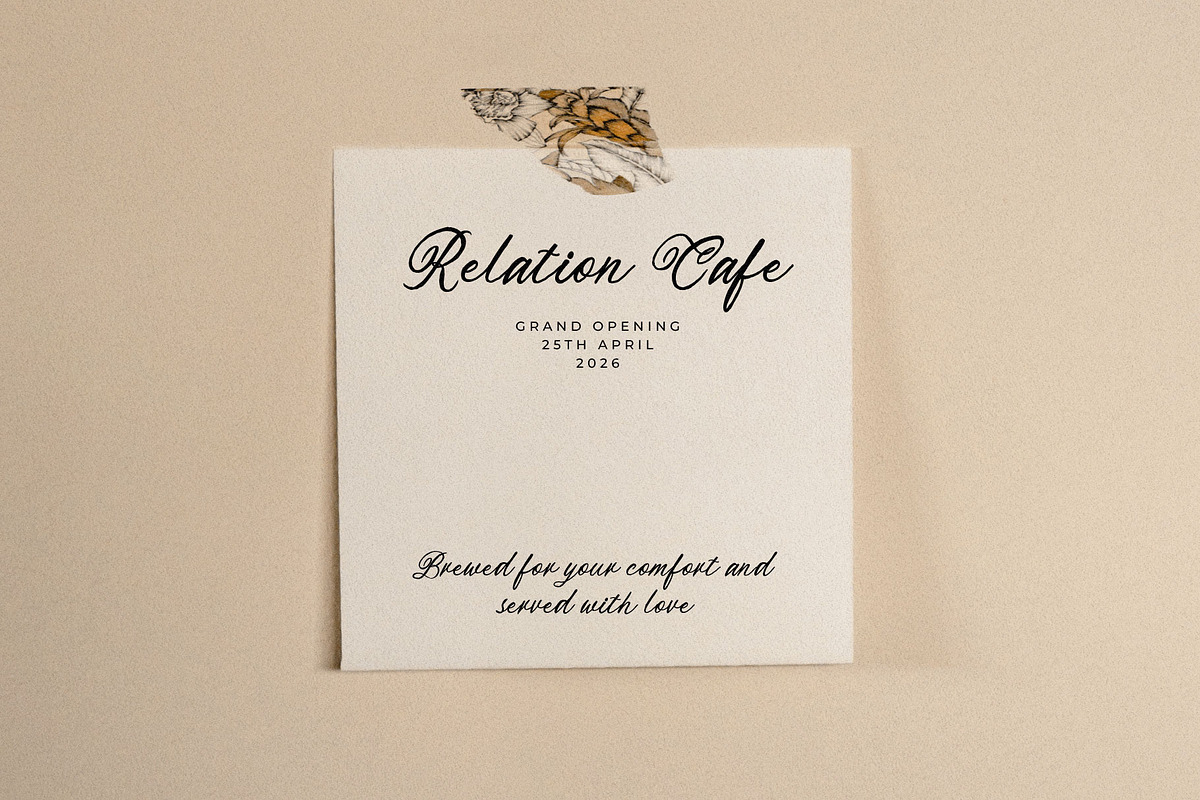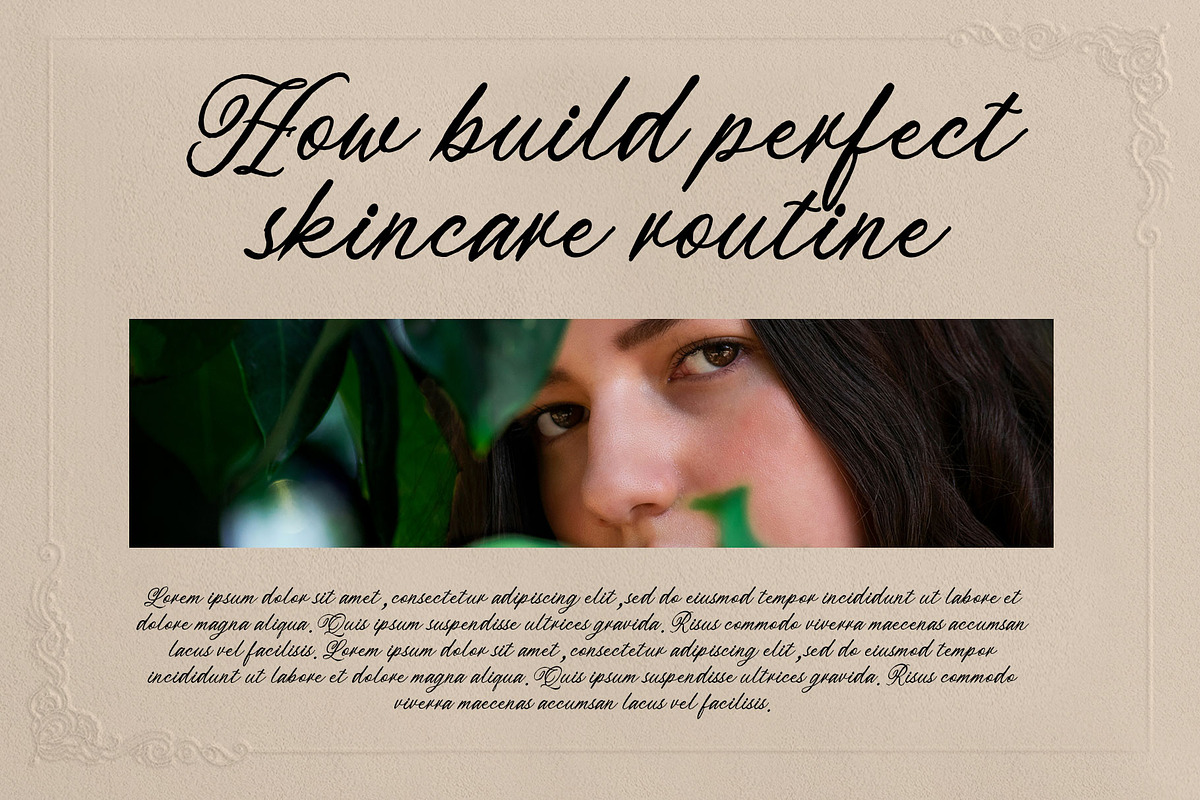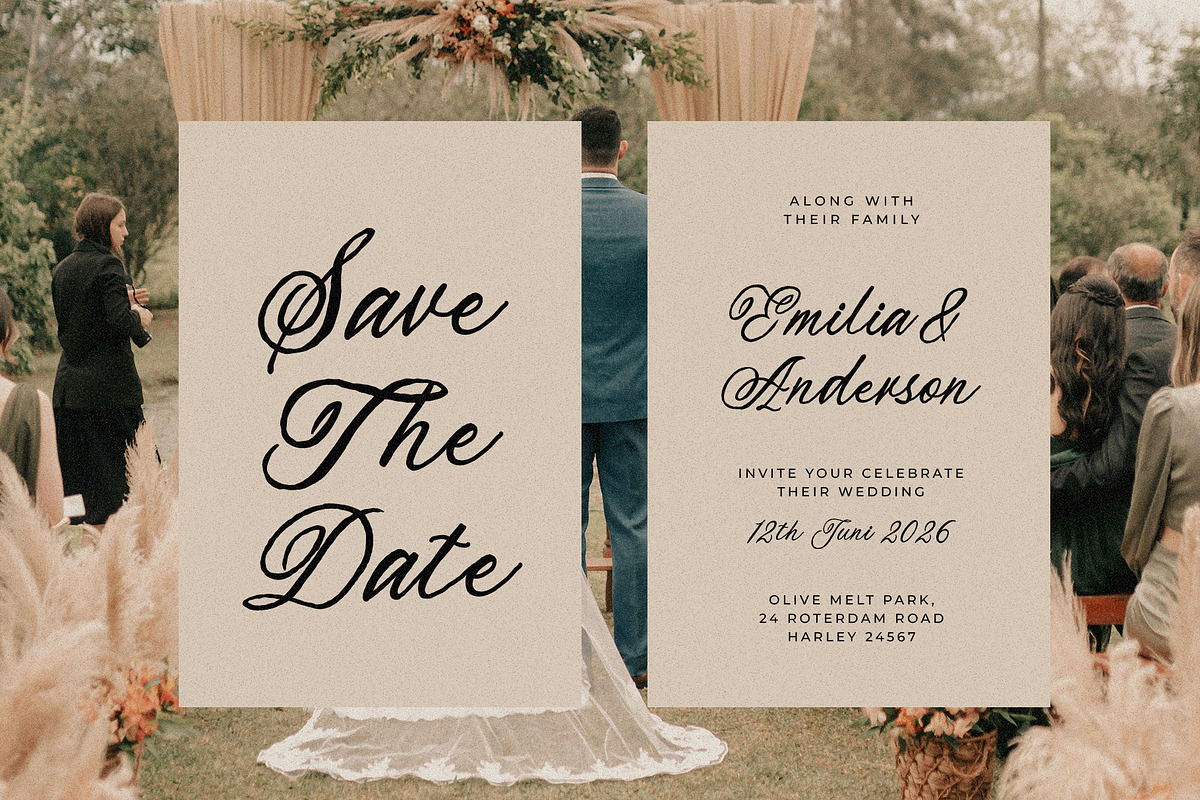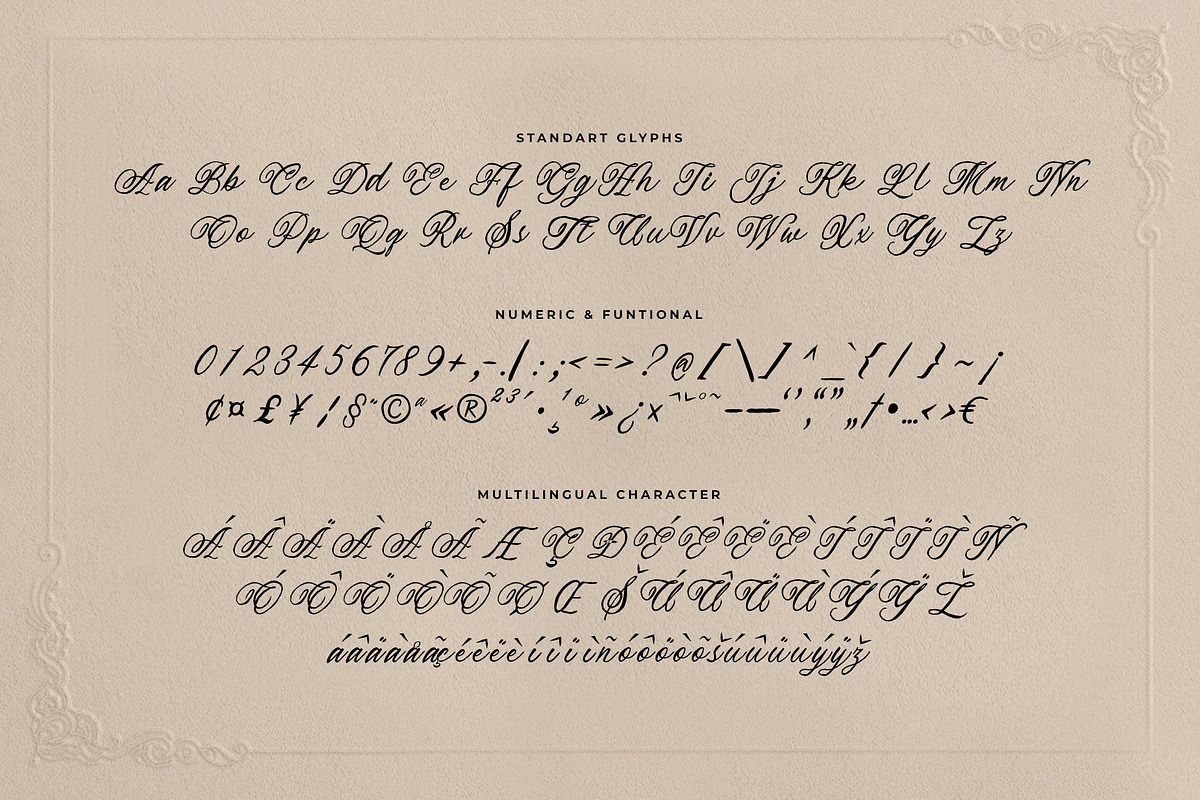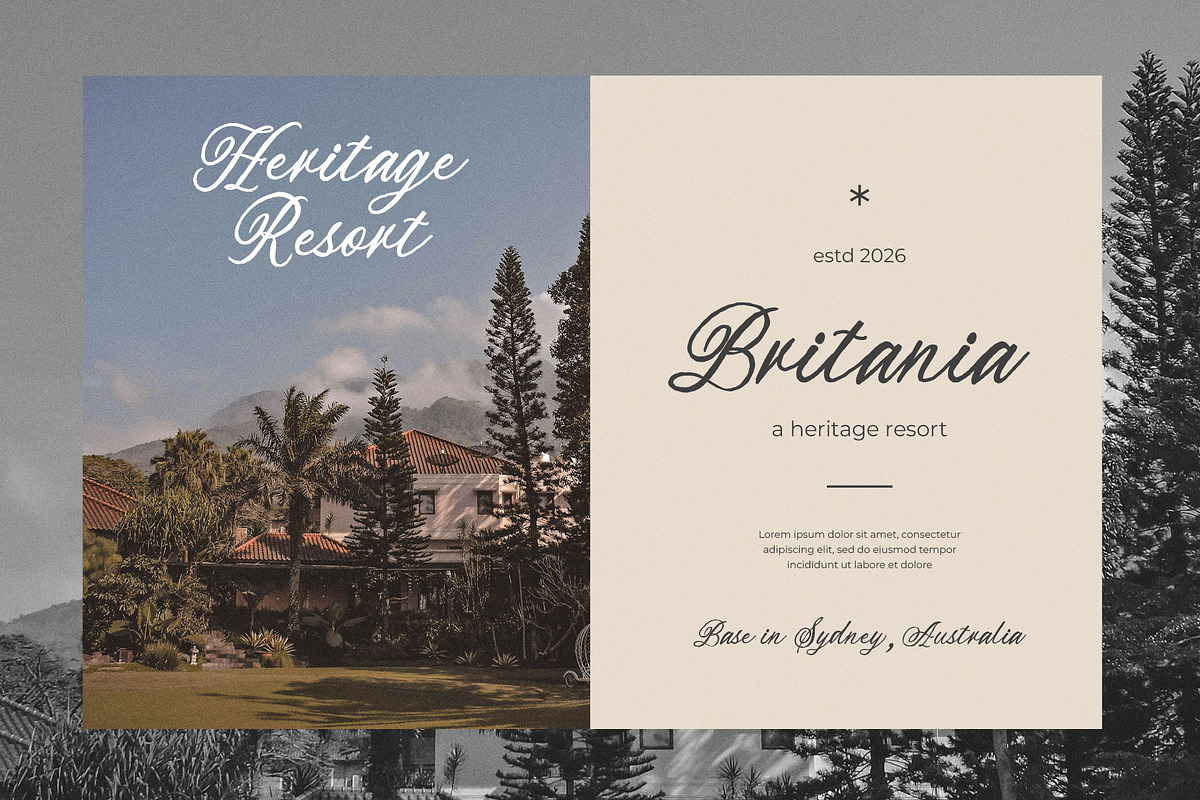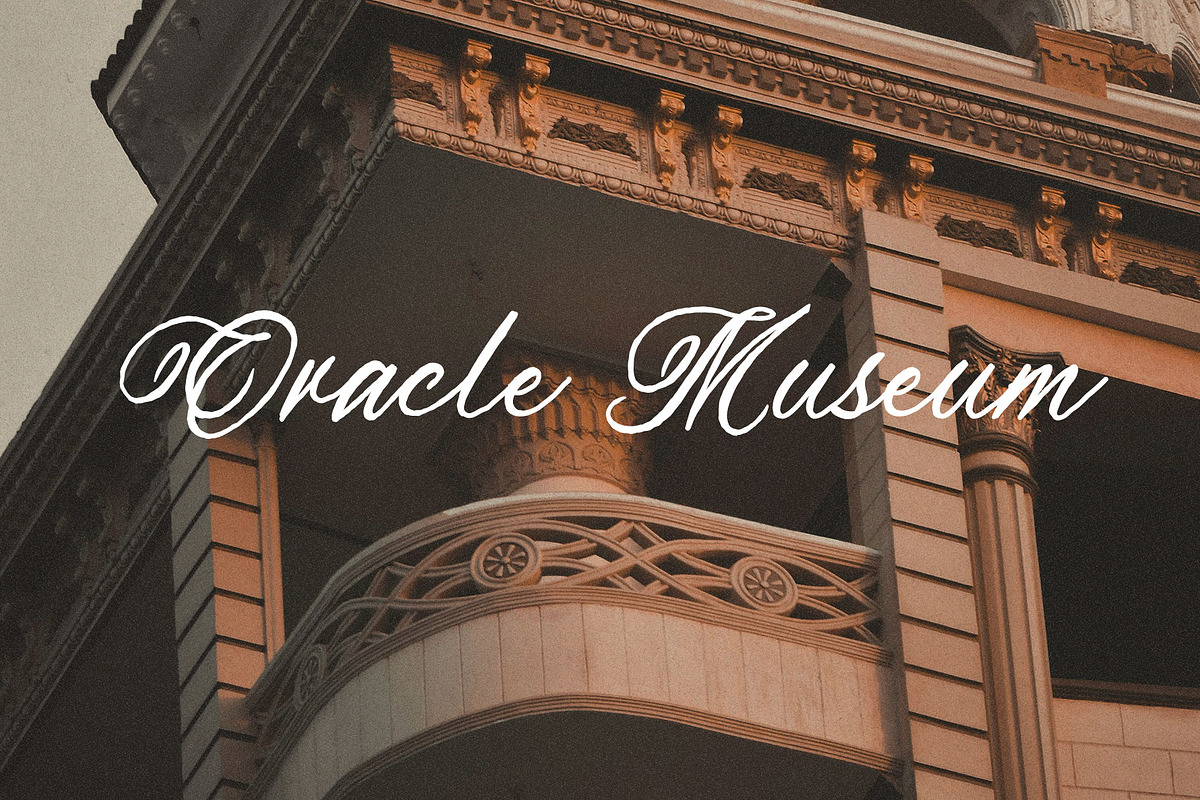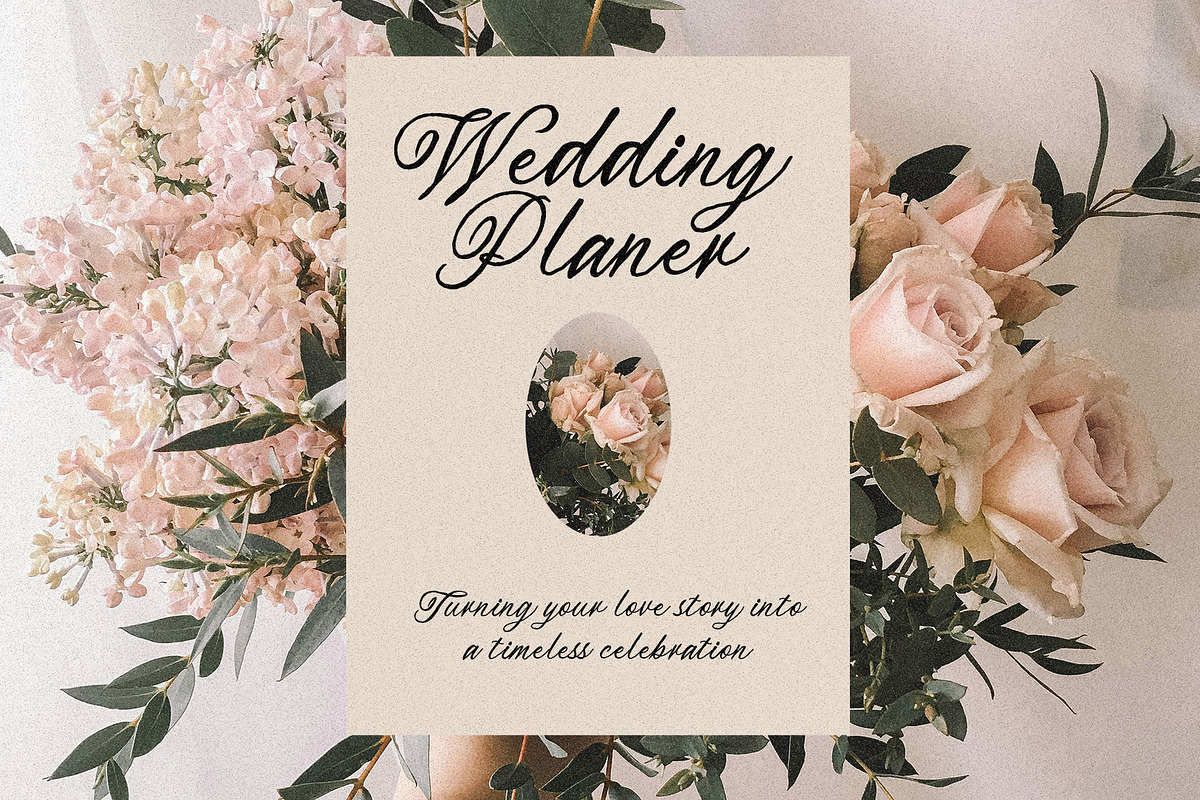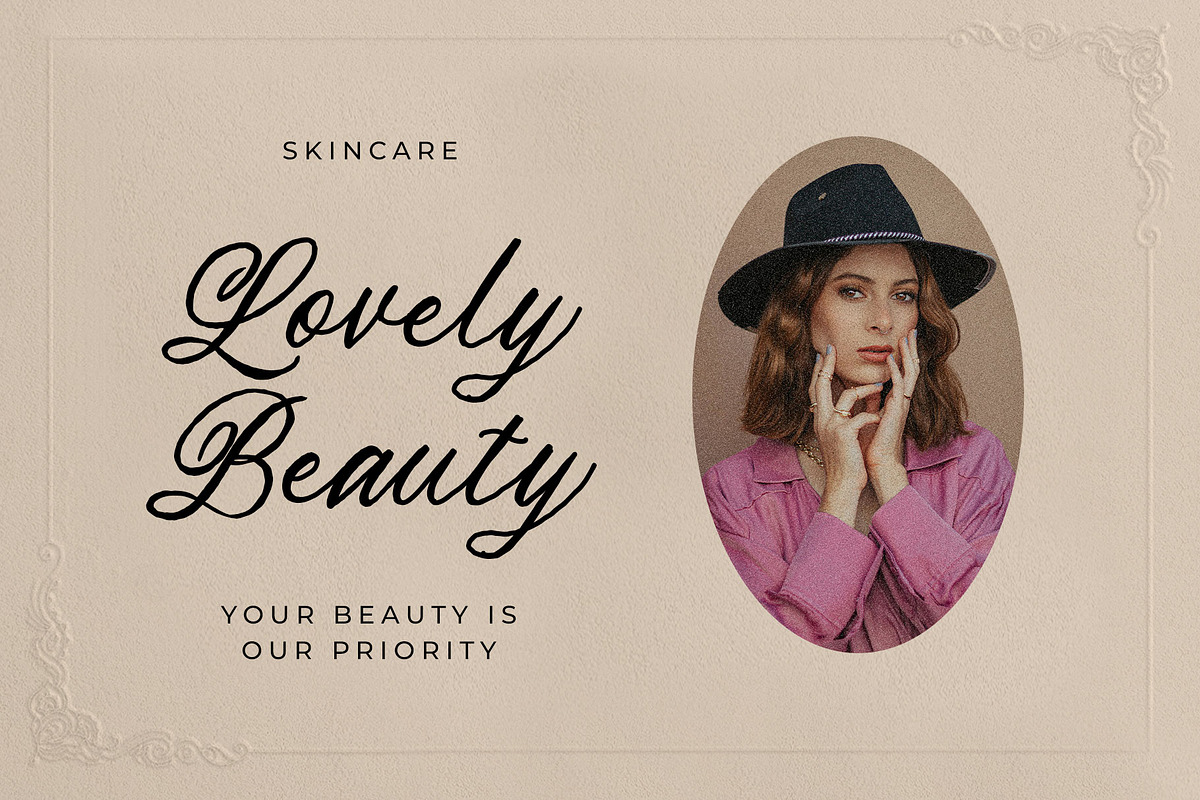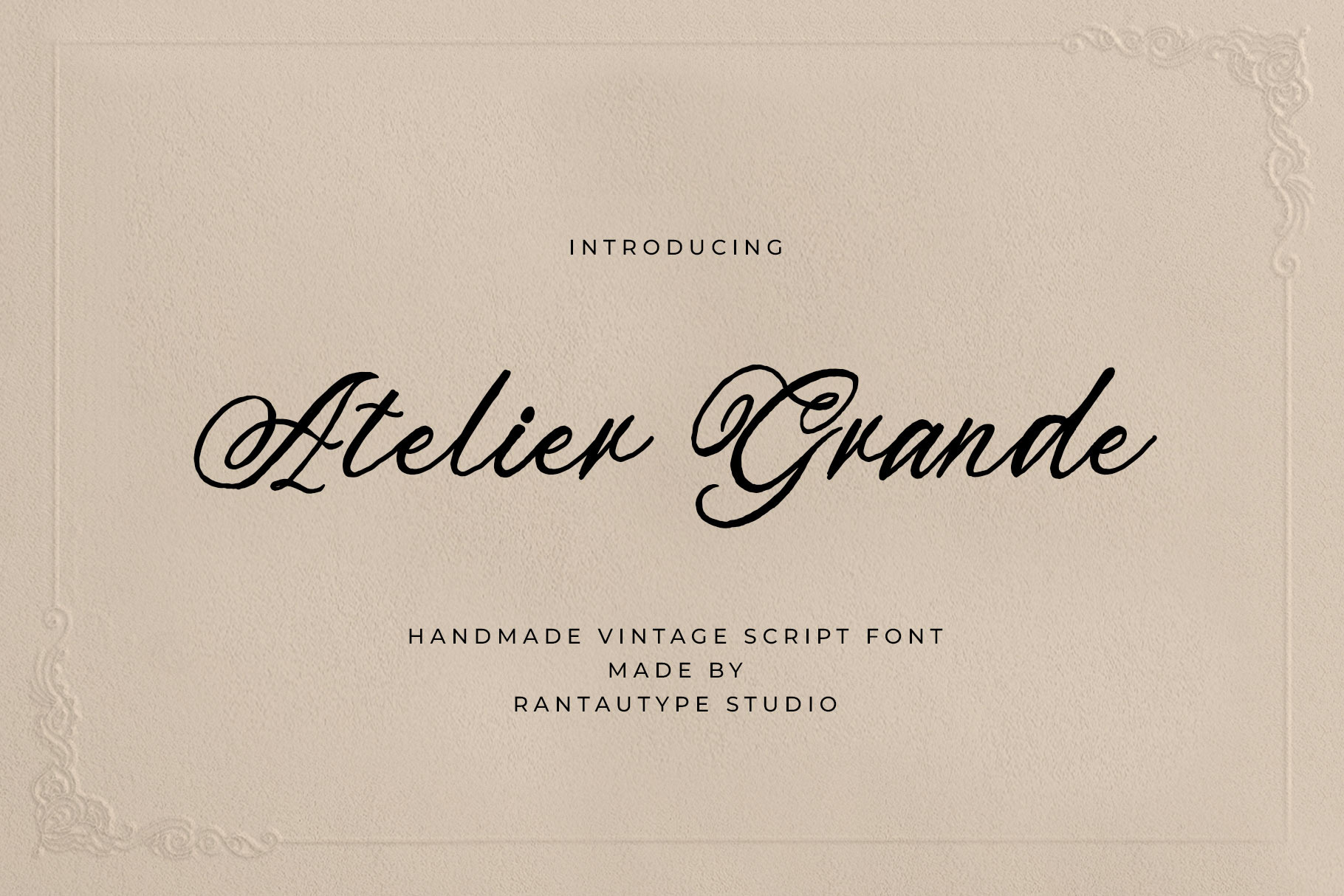
Atelier Grande Vintage Script Font
Atelier Grande is handmage vintage script font with with natural stroke captures the quiet beauty of authenticity and timeless craftsmanship. Inspired by classic penmanship and old-world lettering, this style brings a sense of warmth, nostalgia, and human touch to modern design.
Atelier Grande is a perfectly choice for any creative endeavor, creating, modern, lifestyle design such as logotype, title, cover, branding, invitations, wedding designs, display and magazine, social media posts, advertisements, printed quotes, product packaging, corporate brand, product designs, labels, photography, watermarks, special events and any other project with vintage touch.
Standart Glyphs
Numberial and Functional
Alternate and ligature
Fonts include Multilingual Character for: Afrikaans, Albanian, Asu, Basque, Bemba, Bena, Breton, Chiga, Cornish, Dutch, English, Estonian, Filipino, Finnish, Friulian, Galician, Gusii, Indonesian, Irish, Italian, Kabuverdianu, Kalenjin, Kinyarwanda, Luo, Luxembourgish, Luyia, Machame, North, Oromo, Portuguese, Quechua, Romansh, Rombo, Rundi, Rwa, Samburu, Sango, Sangu, Scottish, Gaelic, Sena, Shambala, Shona, Soga, Somali, Spanish, Swahili, Swedish, Swiss, German.